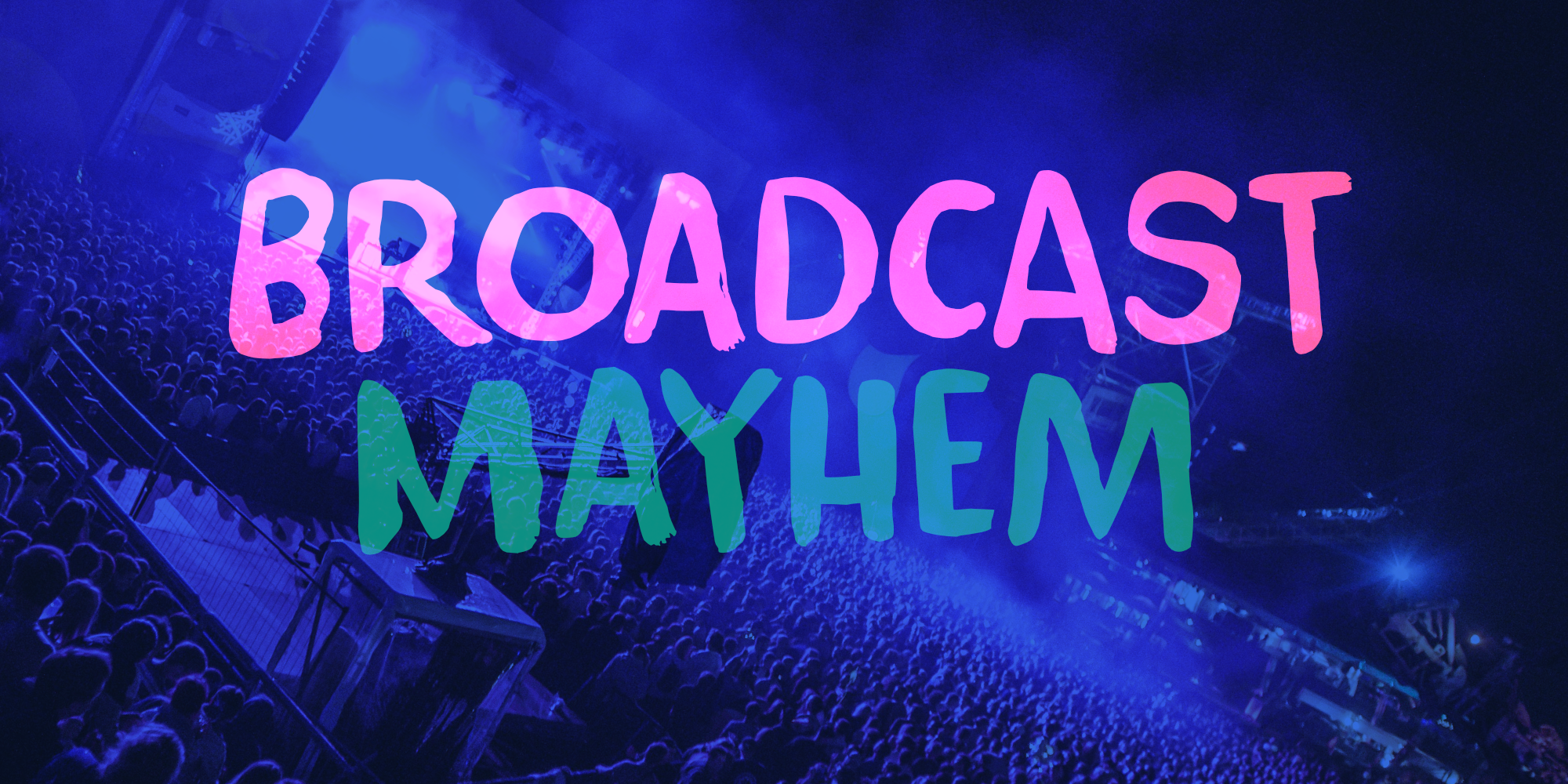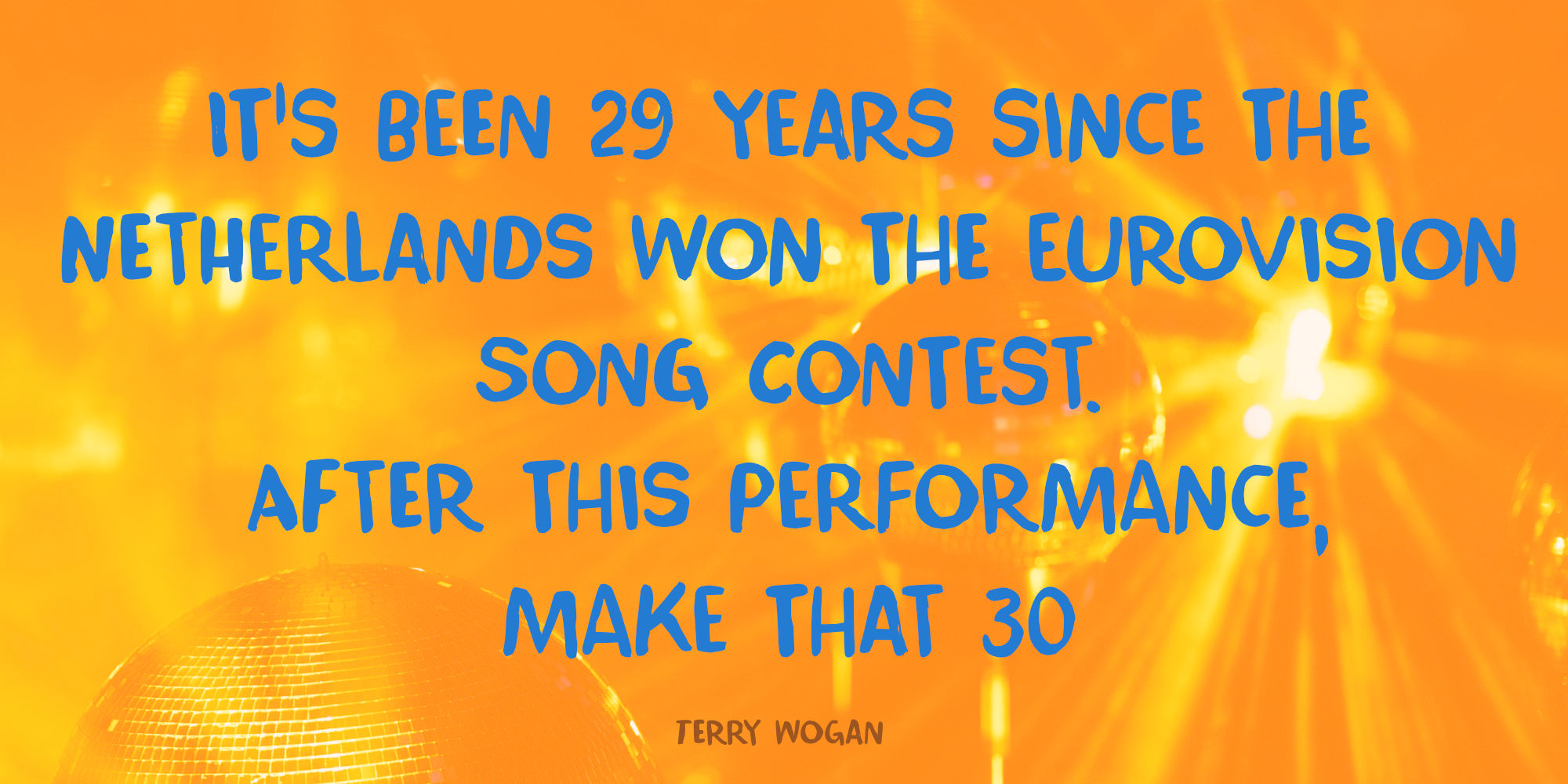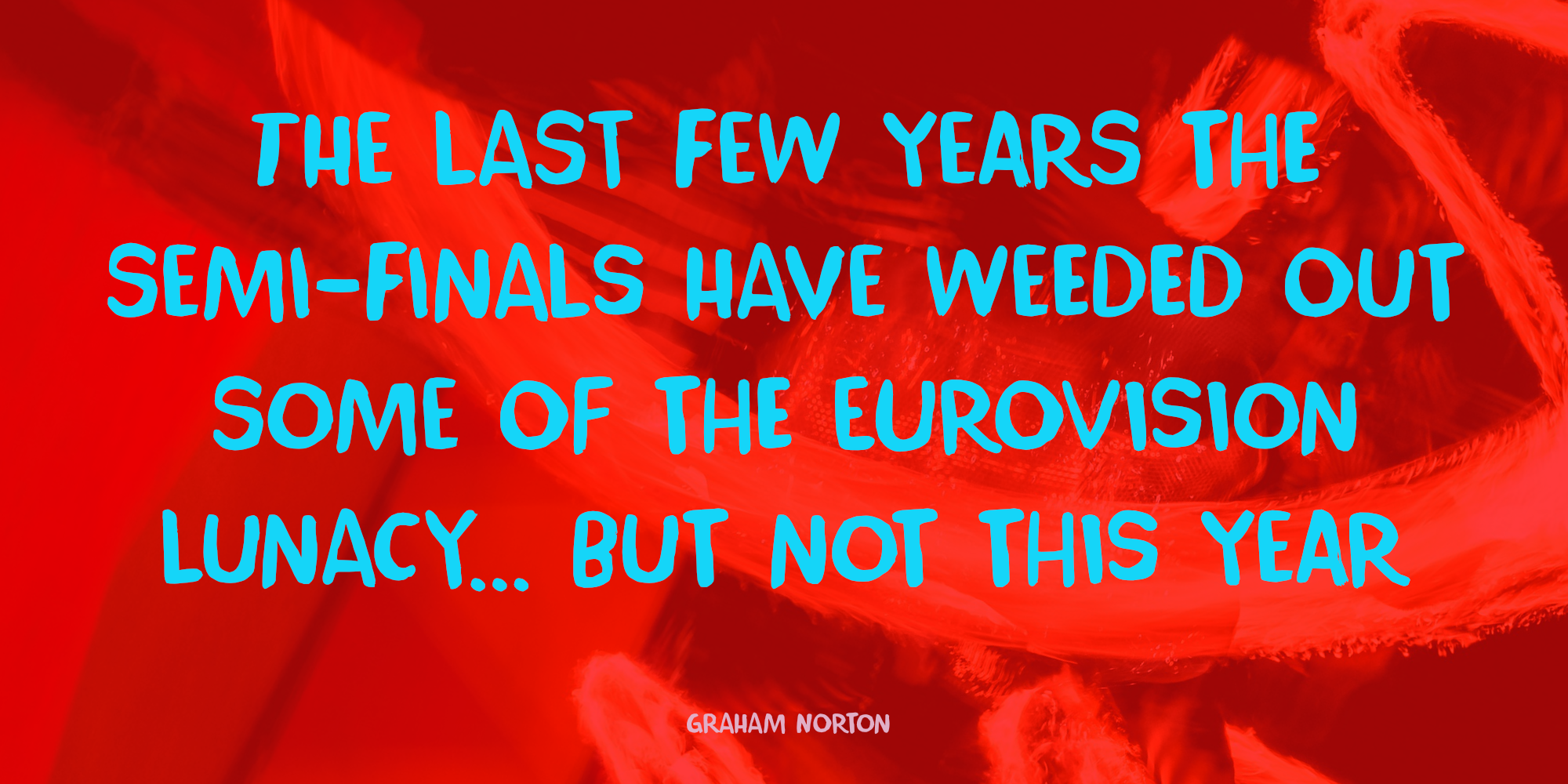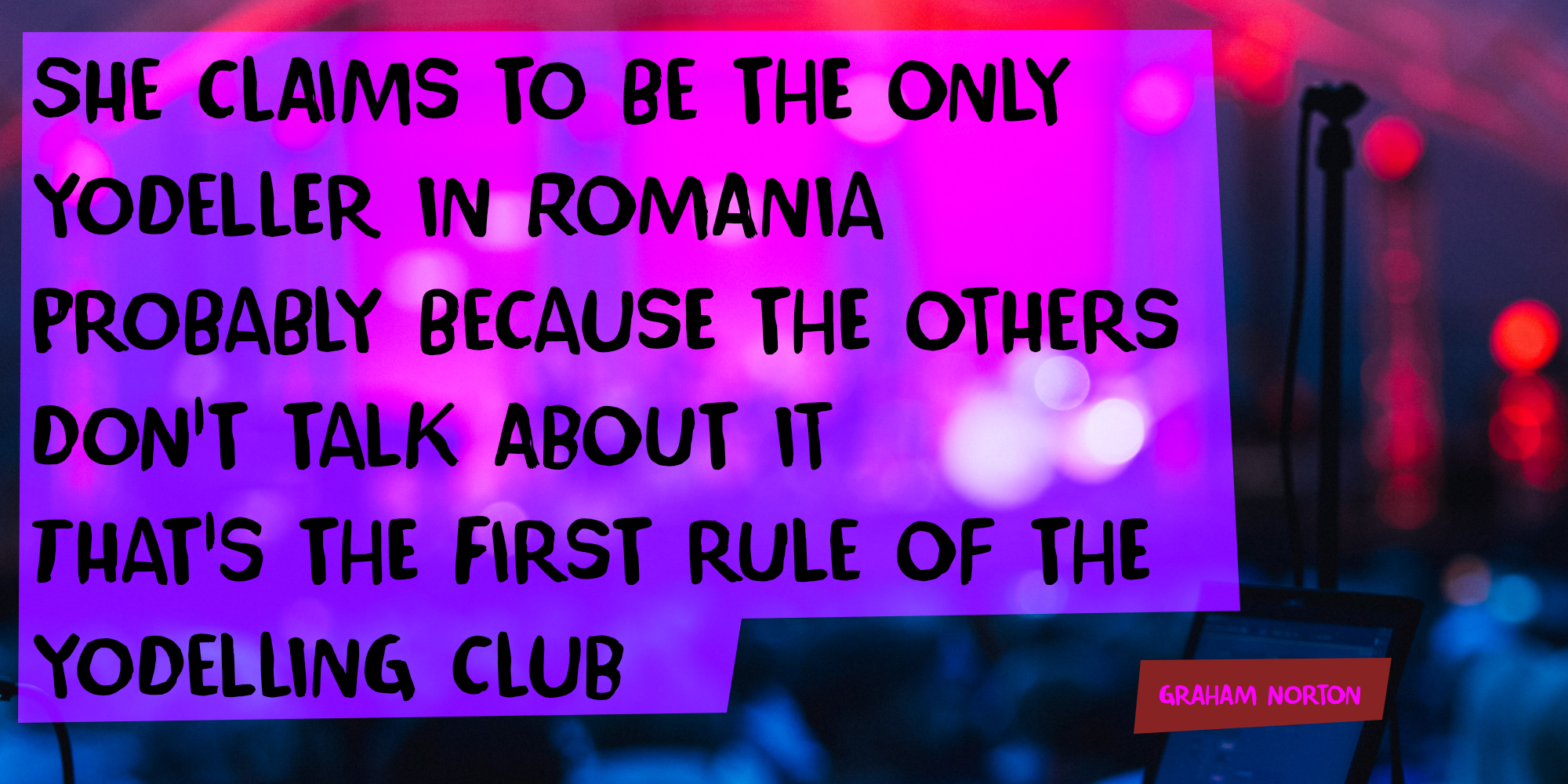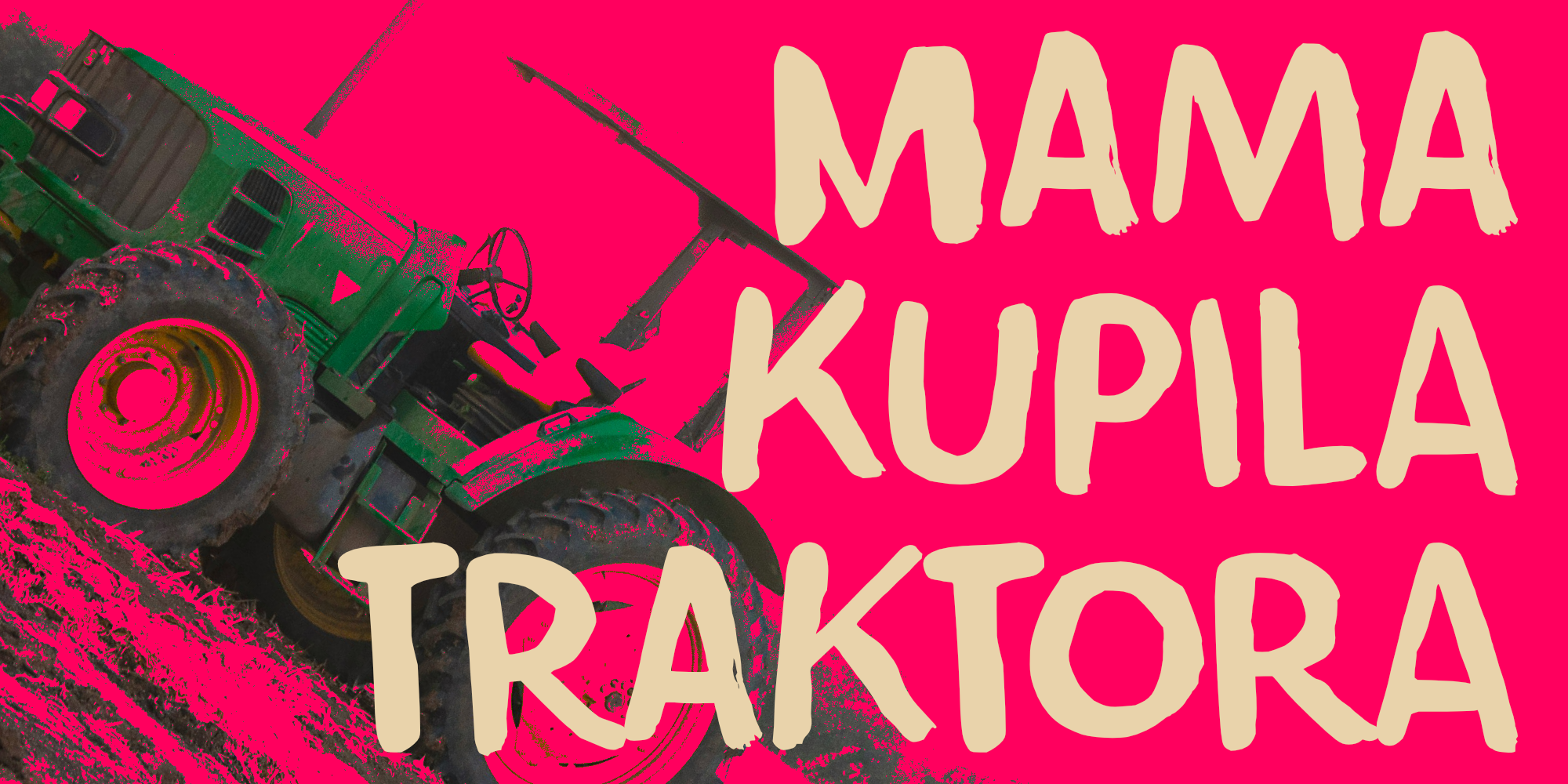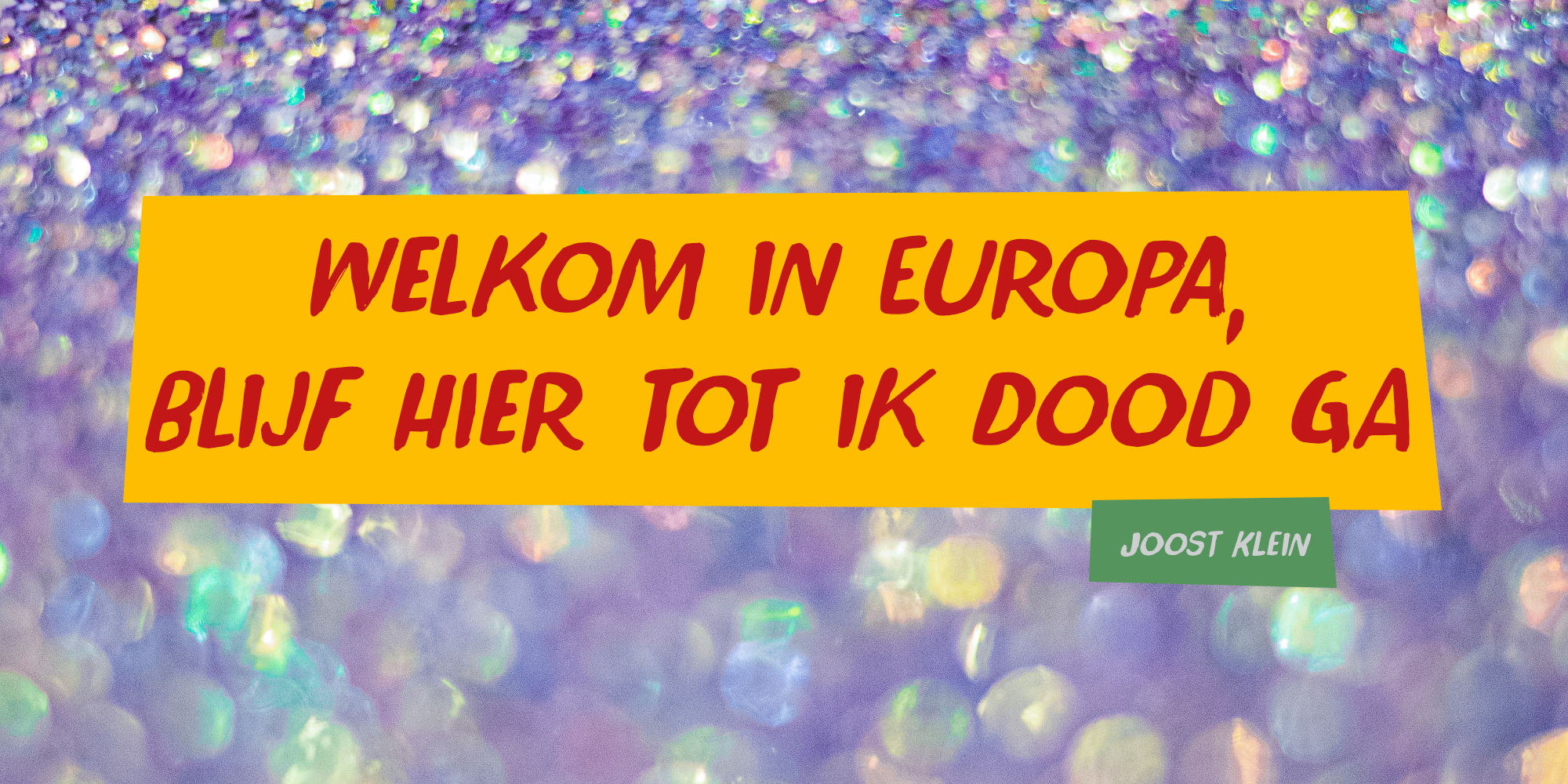
Broadcast Mayhem (2 fonts)
Broadcast Mayhem is a nice, all caps, handmade font. If you are familiar with my fonts, you will probably think: ‘made with Chinese ink and a cheap brush??’. No! It was made with black gouache paint (and a cheap brush - you had that right).